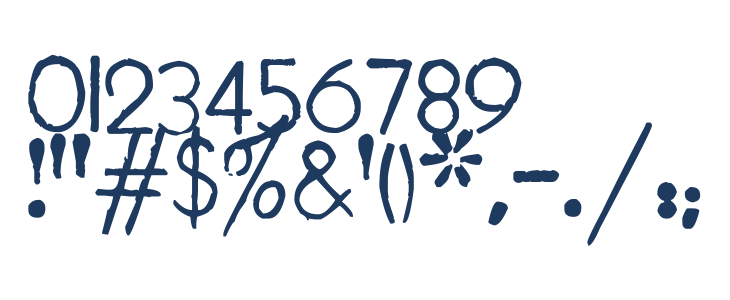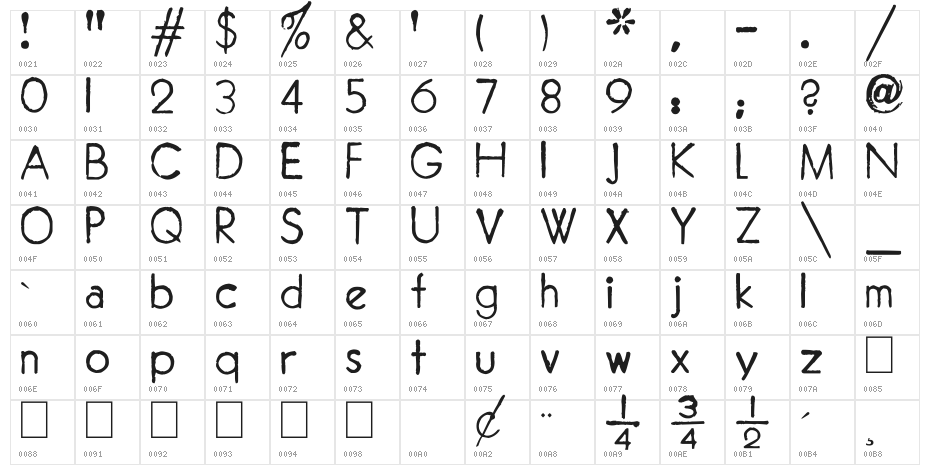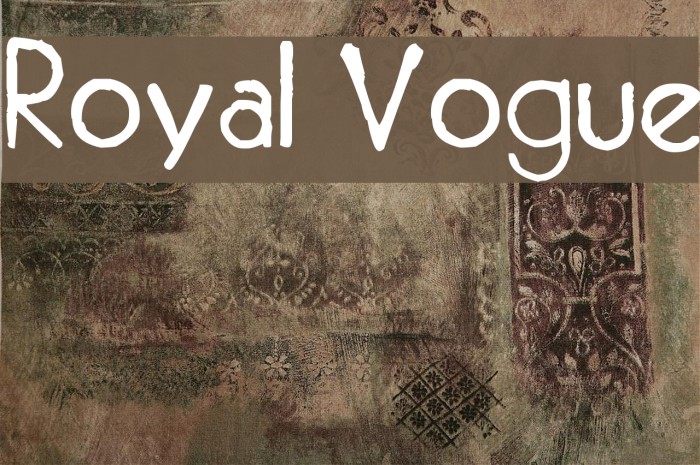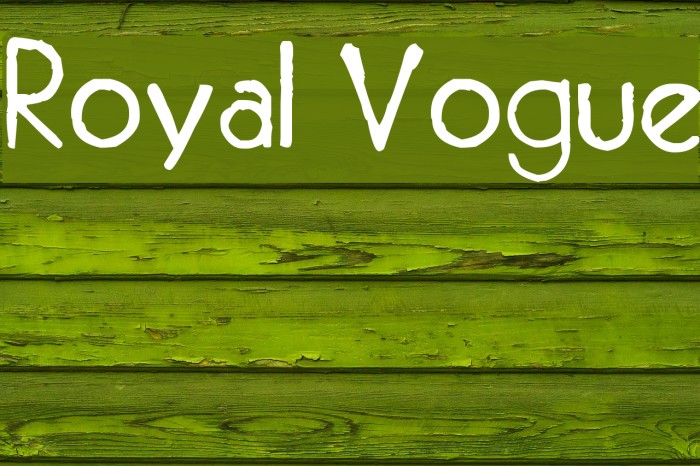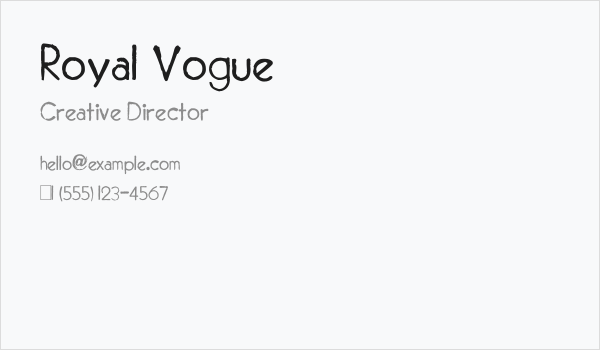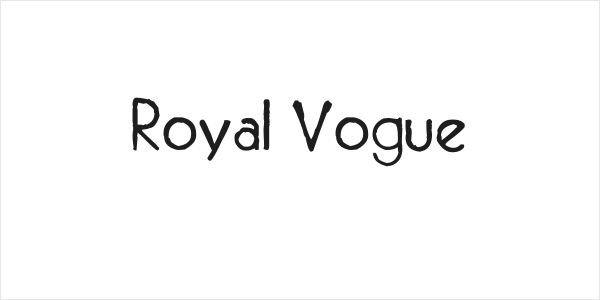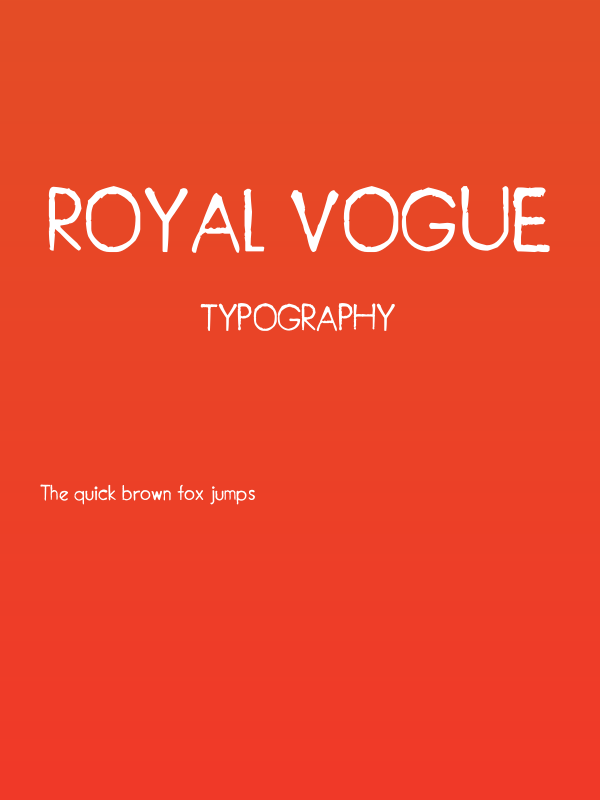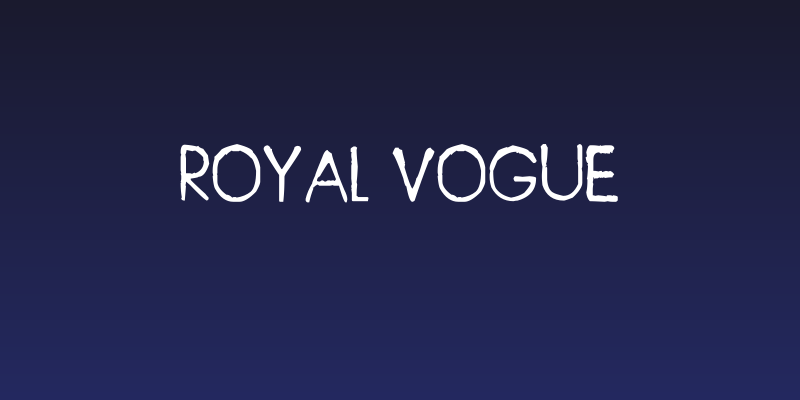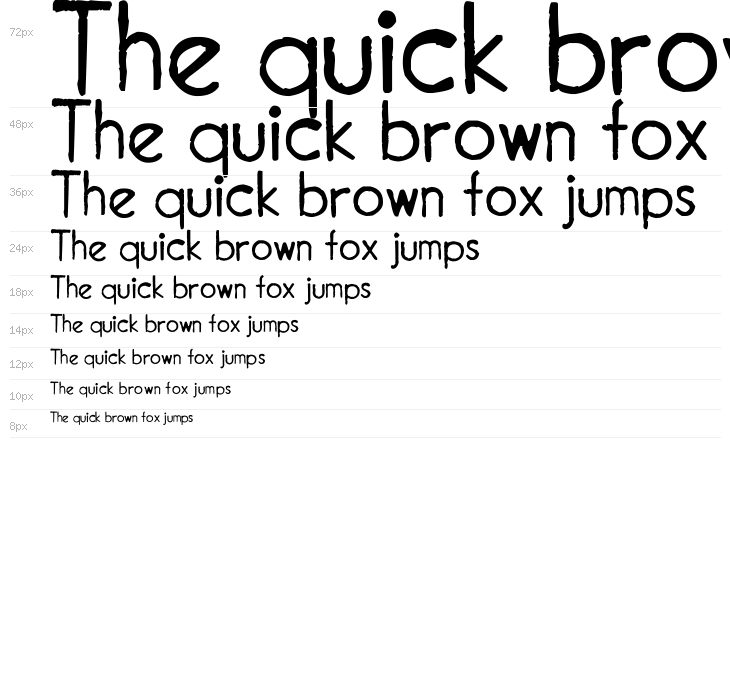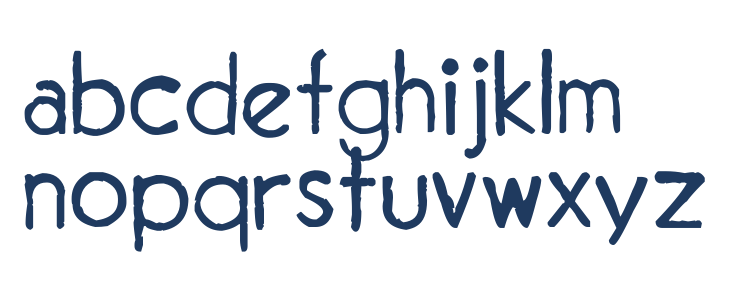
Royal Vogue Font
Royal Vogue Description
This font features a hand-drawn, artistic style with a slightly rough texture that gives it a unique, organic appearance. The characters are bold and expressive, with uneven edges that add to its charm. The uppercase and lowercase letters maintain a consistent height, creating a cohesive look. Numbers and special characters follow the same design principles, ensuring uniformity across all glyphs. This font's playful yet sophisticated style makes it suitable for creative projects that require a personal touch.
| Proposed Projects | Ideal for branding, packaging design, posters, and artistic projects that require a personal, handcrafted feel. |